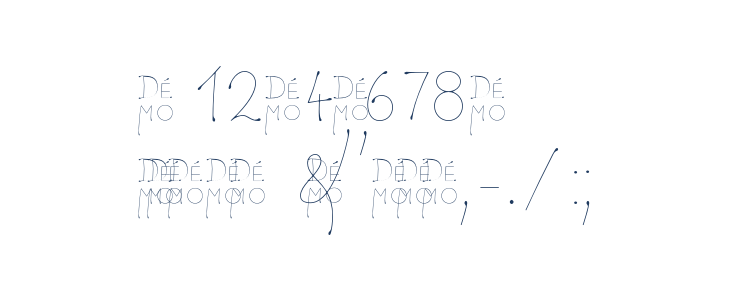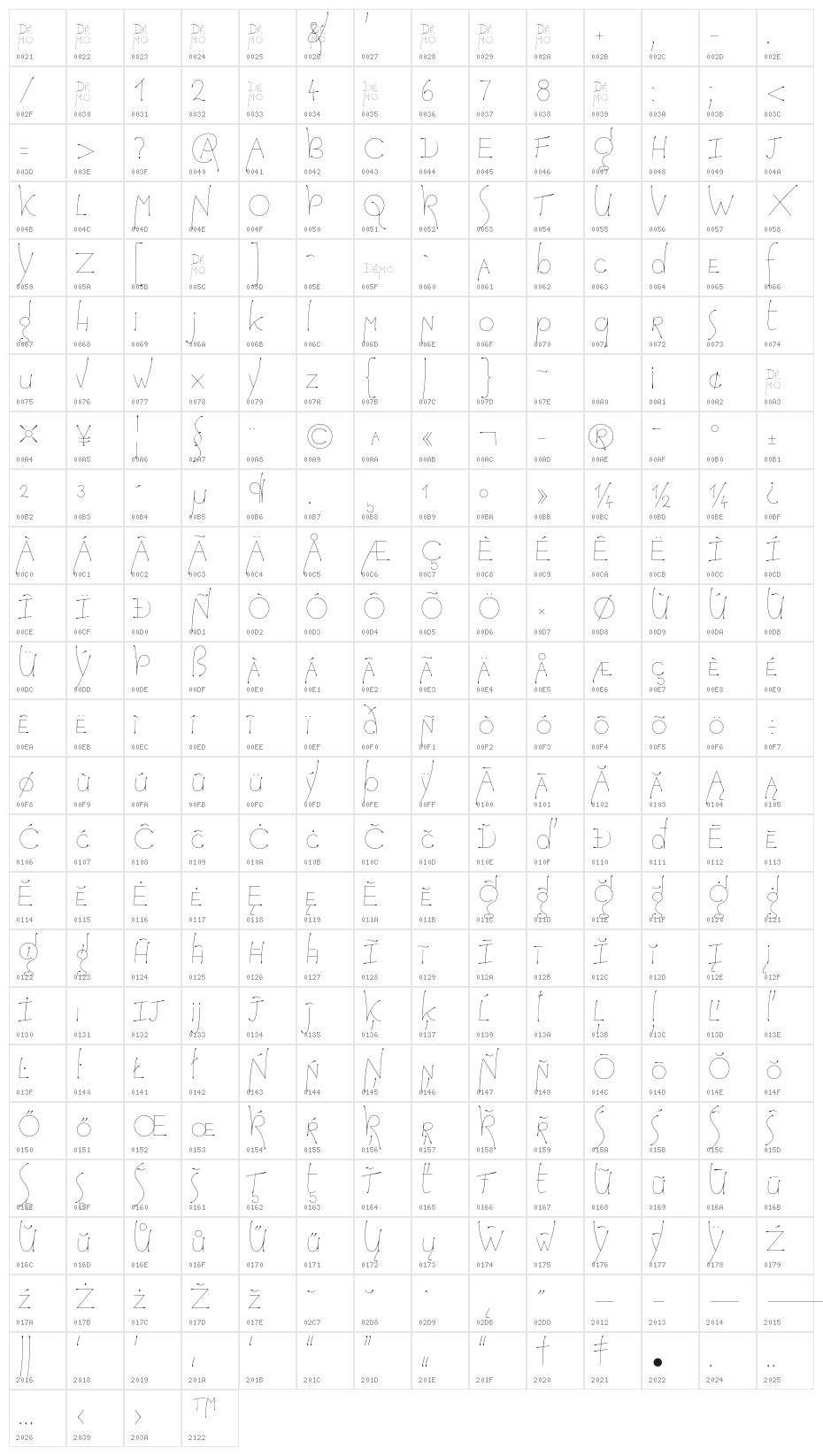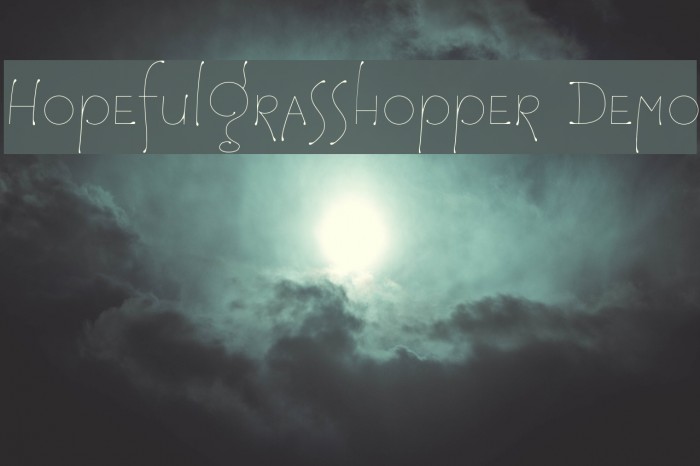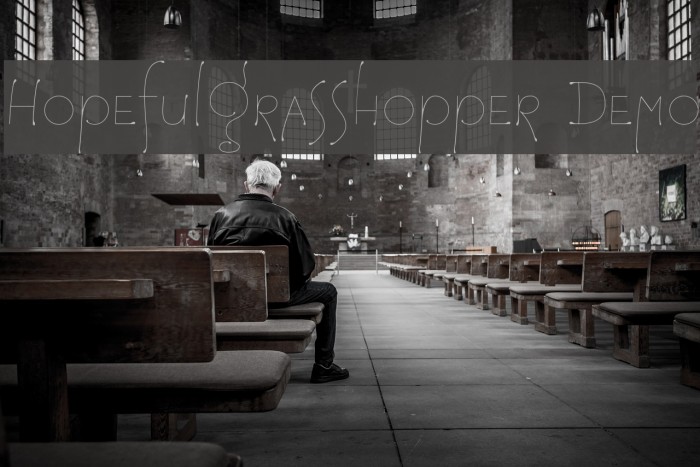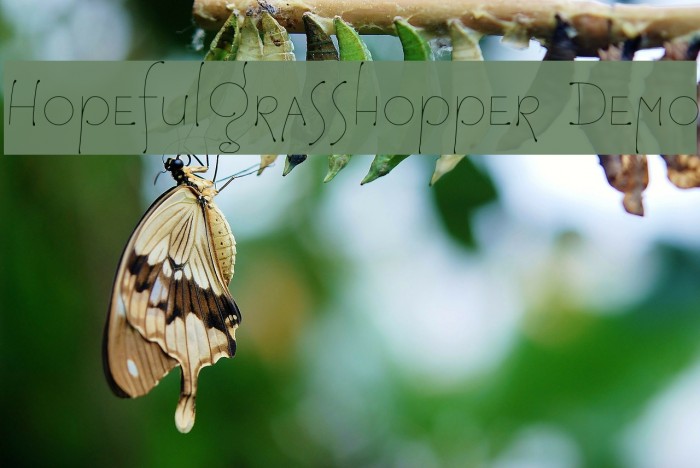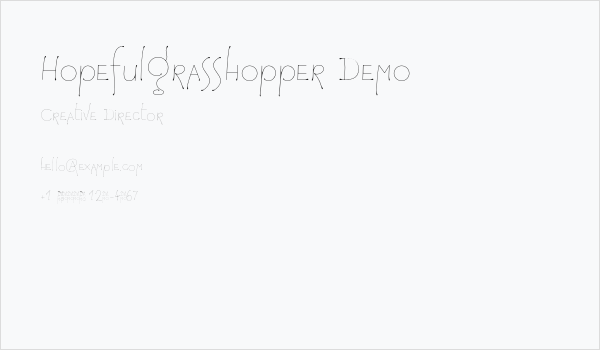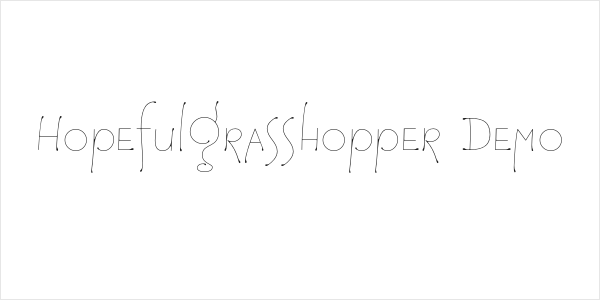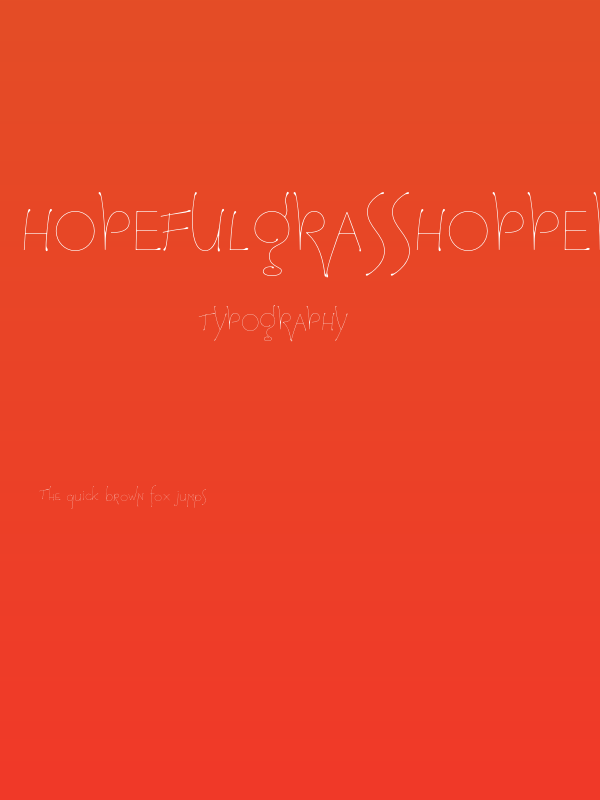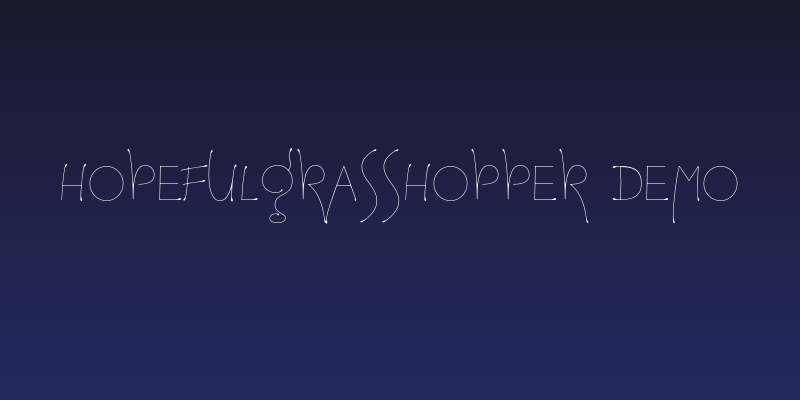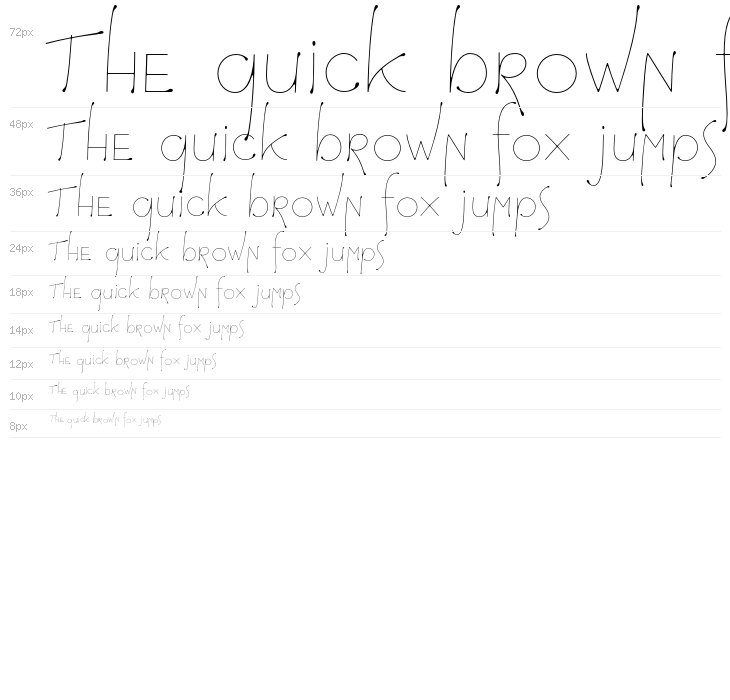
HopefulGrasshopper Demo Font
HopefulGrasshopper Demo Description
This font features a whimsical and playful design, characterized by its thin, elongated strokes and unique, irregular curves. The letters have a hand-drawn quality, with varying line thickness that adds a dynamic and lively feel. The uppercase and lowercase letters maintain a consistent style, with some letters featuring distinctive loops and swirls. Numbers and special characters follow the same playful aesthetic, making the font suitable for creative and informal applications. The overall appearance is light and airy, with a sense of movement and fluidity.
Proposed ProjectsIdeal for children's books, greeting cards, playful branding, and creative posters.